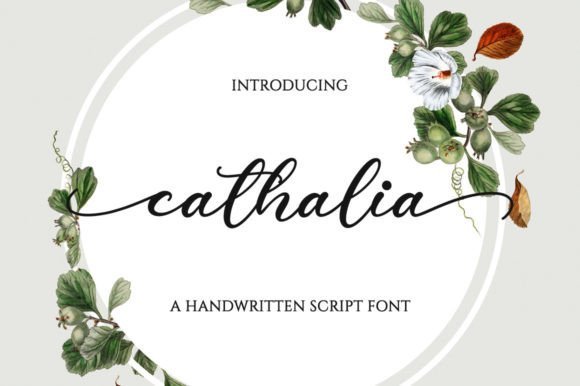
Discover the Timeless Charm of Cathalia Font
There’s nothing quite like the thrill of finding the perfect font to bring your creative vision to life. It’s that moment when the words start flowing, and the design begins to take shape. For designers, it’s a feeling that’s hard to beat – and it’s exactly what makes working with the Cathalia Font so magical.
This lovely and timeless handwritten font is the perfect choice for creating eye-catching logos, branding, and quotes that leave a lasting impression. With its unique charm and versatility, Cathalia Font is a valuable asset for designers looking to add a touch of elegance to their work. Whether you’re working on a personal project or a commercial client, this font is sure to deliver results.
Cathalia Font Key Features
- Unique Characteristics: Features elegant, cursive script with a touch of sophistication and refinement.
Cathalia Font Review
I recently had the chance to work with the Cathalia font, and I wanted to share my honest thoughts on it.
- The elegant and sophisticated feel of the font makes it perfect for luxury brands and high-end designs.
- The font’s versatility allows it to be used in a variety of settings, from titles to body text.
- The ligatures and swashes add a touch of elegance and sophistication to the font.
- The font can feel a bit ornate and may not be suitable for designs that require a more minimalist approach.
- The font’s size may need to be adjusted carefully to ensure it remains legible at smaller sizes.
Overall, I think the Cathalia font is a beautiful and elegant choice for designs that require a touch of sophistication. However, it may not be the best fit for every project, and its limitations should be carefully considered. With the right design approach, the Cathalia font can be a stunning addition to any design.
Cathalia Font is ideal for various design projects, including:
- Business cards and branding materials
- Logos and typography projects
- Editorial designs and magazines
Alternatives to Cathalia Font for Designers
Carolyna Pro is a modern, elegant sans-serif font designed for digital use. It’s perfect for creating a clean and sophisticated look in branding, typography, and digital interfaces. Compared to Cathalia Font, Carolyna Pro has a more minimalist aesthetic and is better suited for contemporary designs.
Great Vibes is a script font with a modern, handwritten feel. It’s ideal for adding a touch of personality and elegance to designs, such as invitations, quotes, and social media graphics. While Cathalia Font has a more formal, elegant feel, Great Vibes is more playful and expressive.
Montserrat is a geometric sans-serif font designed for urban environments. It’s perfect for creating a modern, edgy look in branding, signage, and digital interfaces. Compared to Cathalia Font, Montserrat has a more industrial, bold aesthetic and is better suited for modern and avant-garde designs.